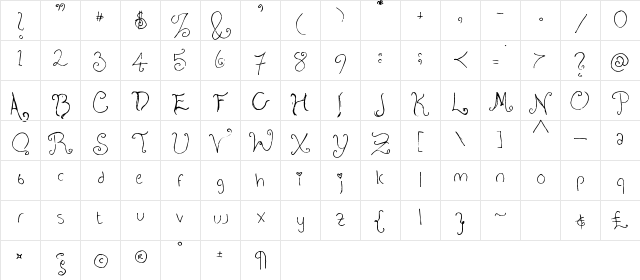
i-hearts Regular
Design Context for i-hearts Typeface
i-hearts is a composed and adaptable typeface that performs quietly and consistently across a wide range of design contexts.